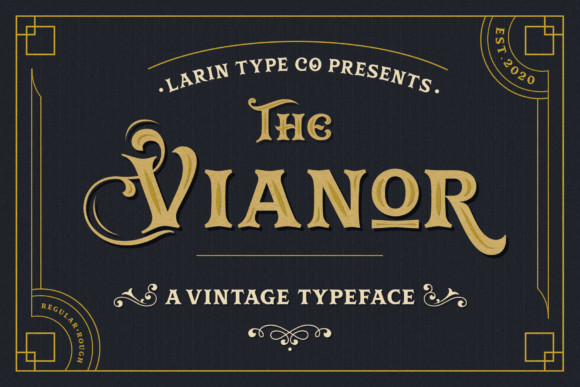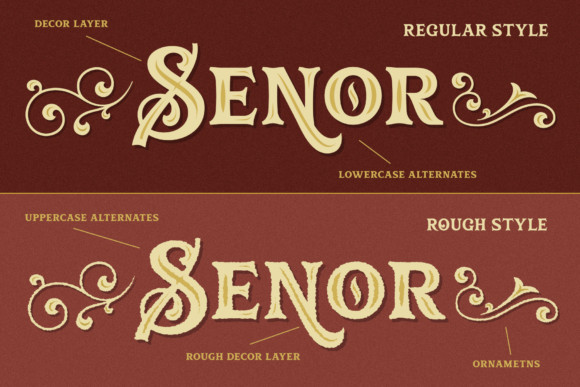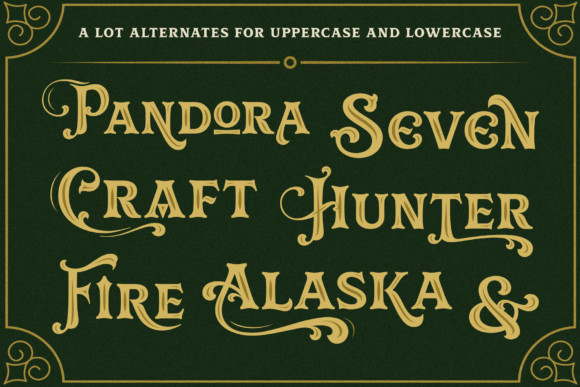
Vianor Font
Vianor is an incredibly elegant, bold and vintage display font. This font reads as strong, confident, and dynamic and can add tons of nostalgic character to your designs.